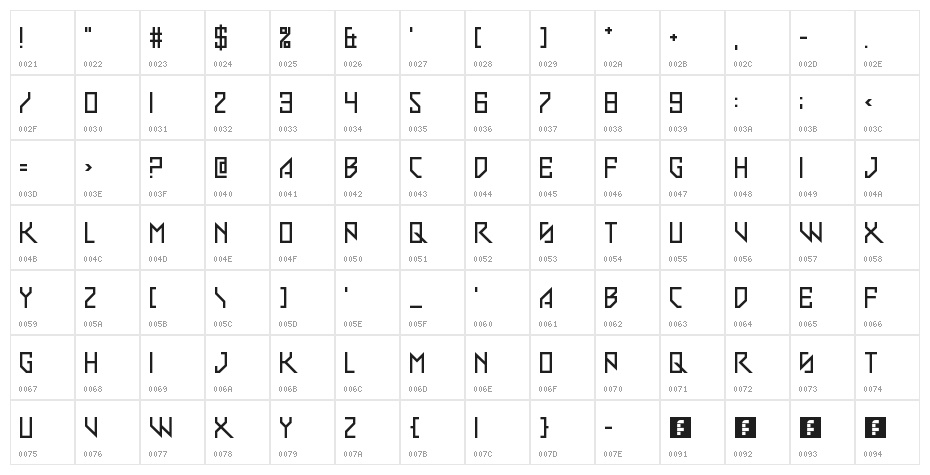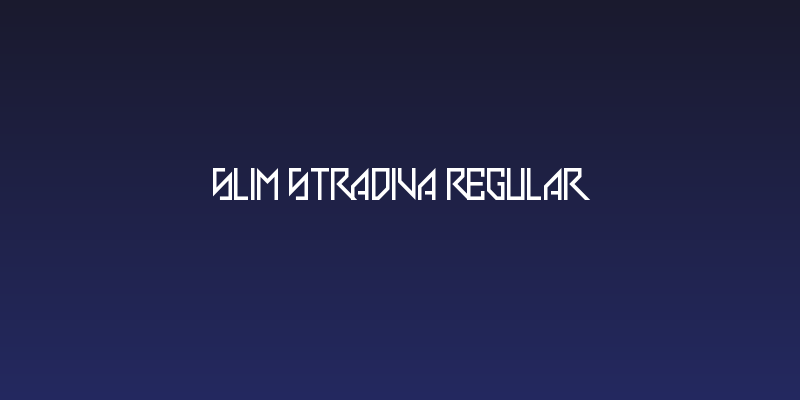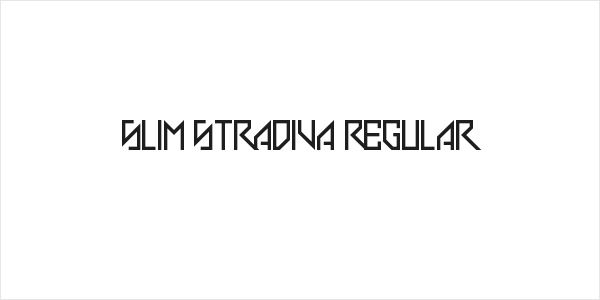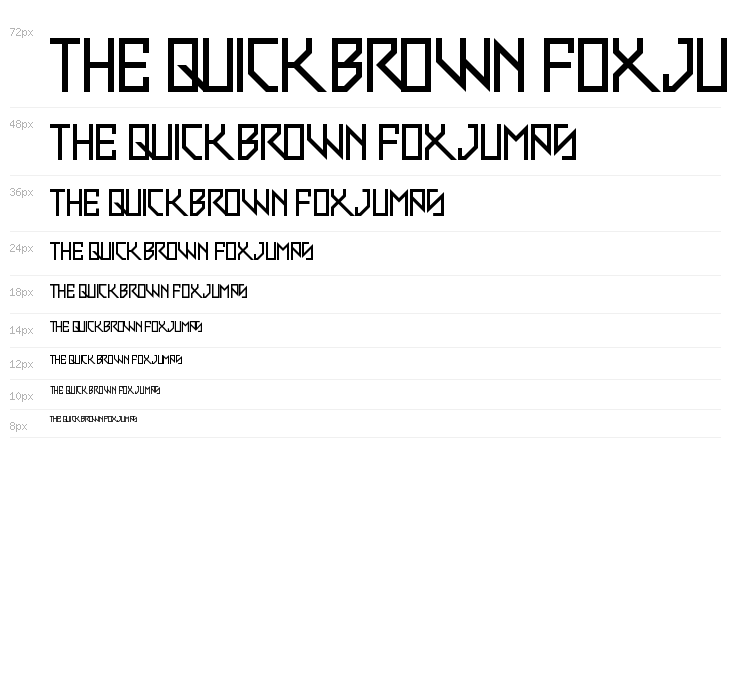
Slim Stradiva Regular Font
Slim Stradiva Regular Description
This font features a geometric and angular design, characterized by sharp edges and a modern aesthetic. The letters are constructed with straight lines and precise angles, giving it a futuristic and technical appearance. The uppercase and lowercase letters maintain a consistent style, with uniform stroke widths that contribute to a clean and cohesive look. The numerals and special characters follow the same design principles, ensuring a harmonious overall presentation. This font is ideal for projects that require a bold and distinctive visual impact.
| Proposed Projects | Ideal for technology branding, futuristic posters, and modern graphic design projects. |